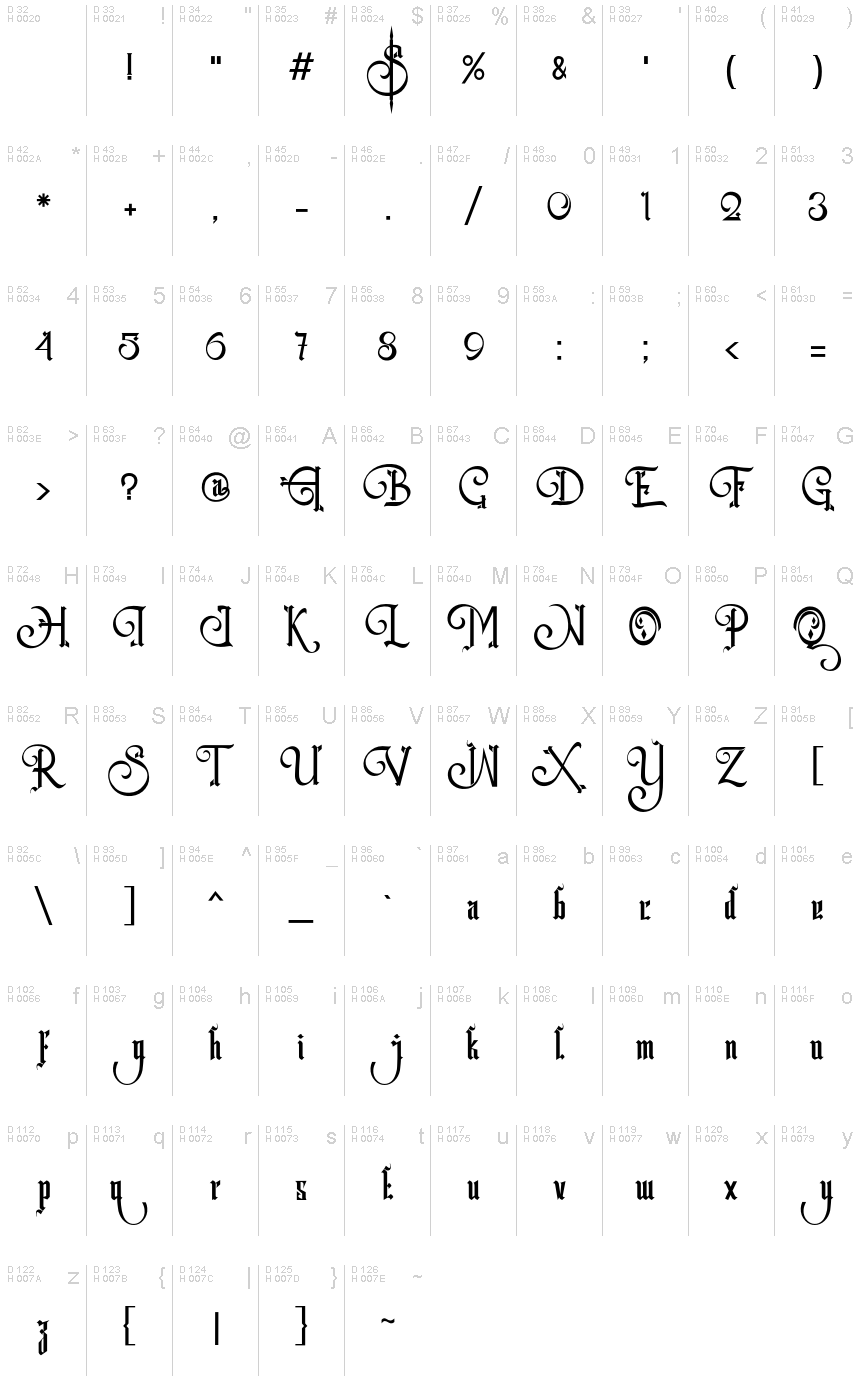
Arakunda
Arakunda captivates with its striking medieval gothic style, exuding an air of elegance and intrigue. The condensed form enhances its visual impact, creating a sense of sophistication and focused intensity. Each character is meticulously crafted, blending sharp angles with flowing curves that evoke a rich historical essence.
The font’s distinctive aesthetic makes it ideal for both modern and traditional design contexts. From enchanting book covers to captivating event invitations, Arakunda brings a touch of drama that commands attention. Its unique style is perfect for branding that seeks to convey heritage and depth while remaining contemporary.
Whether for creative projects or impactful displays, Arakunda stands out as a bold choice, ensuring any message resonates with authenticity and flair.
The font’s distinctive aesthetic makes it ideal for both modern and traditional design contexts. From enchanting book covers to captivating event invitations, Arakunda brings a touch of drama that commands attention. Its unique style is perfect for branding that seeks to convey heritage and depth while remaining contemporary.
Whether for creative projects or impactful displays, Arakunda stands out as a bold choice, ensuring any message resonates with authenticity and flair.